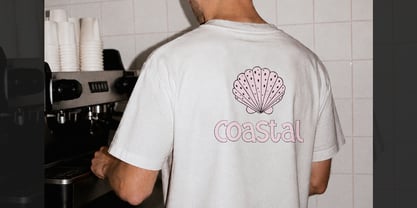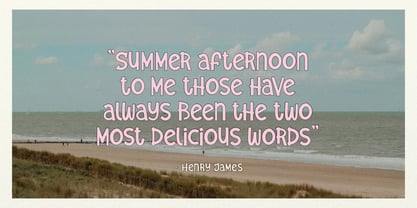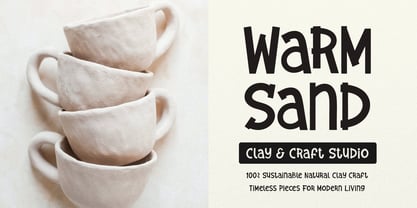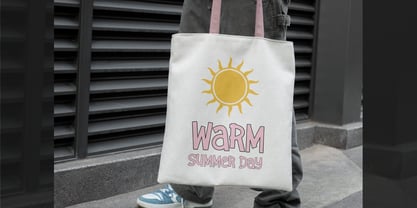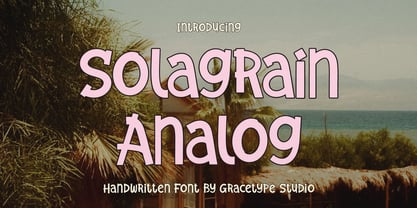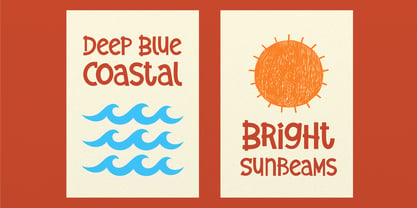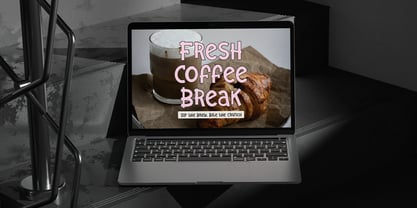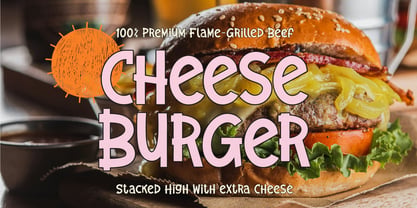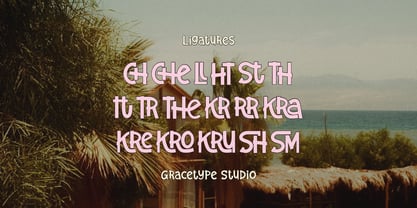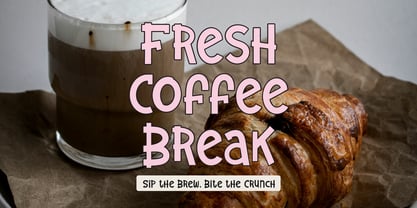
Solagrain Analog
by Tini Fitriani
The Solagrain Analog Font Family and published by Tini Fitriani. Solagrain Analog contains 1 styles. More about this family
Solagrain Analog | Handwritten Font, from Gracetypestudio, suitable for any projects such as: logos, branding projects, homeware designs, product packaging, mugs, quotes, posters, shopping bags, t-shirts, book covers, name card, invitation cards, greeting cards, label, photography, watermark, special events, and all your other lovely projects that need a Handwritten taste.